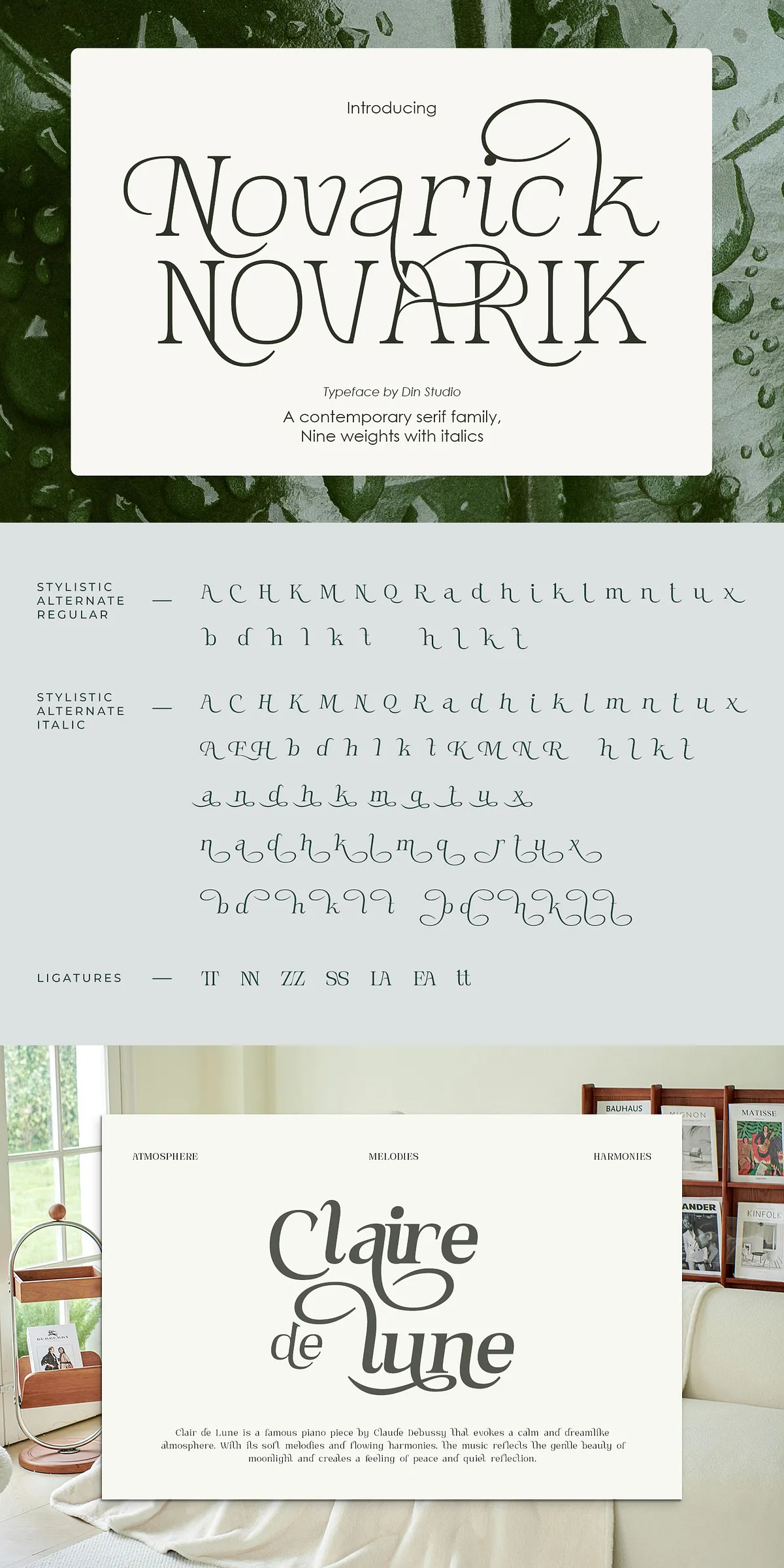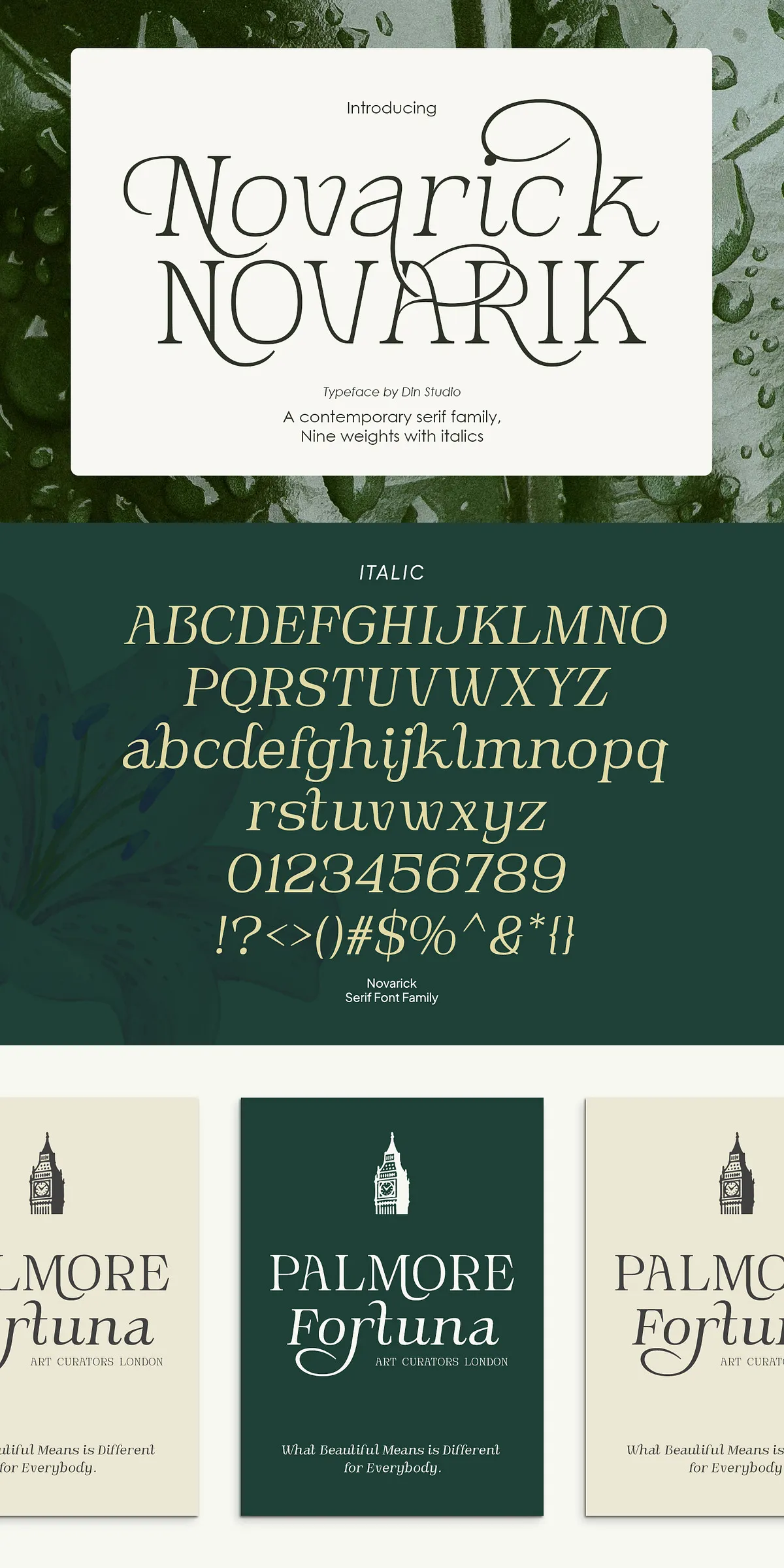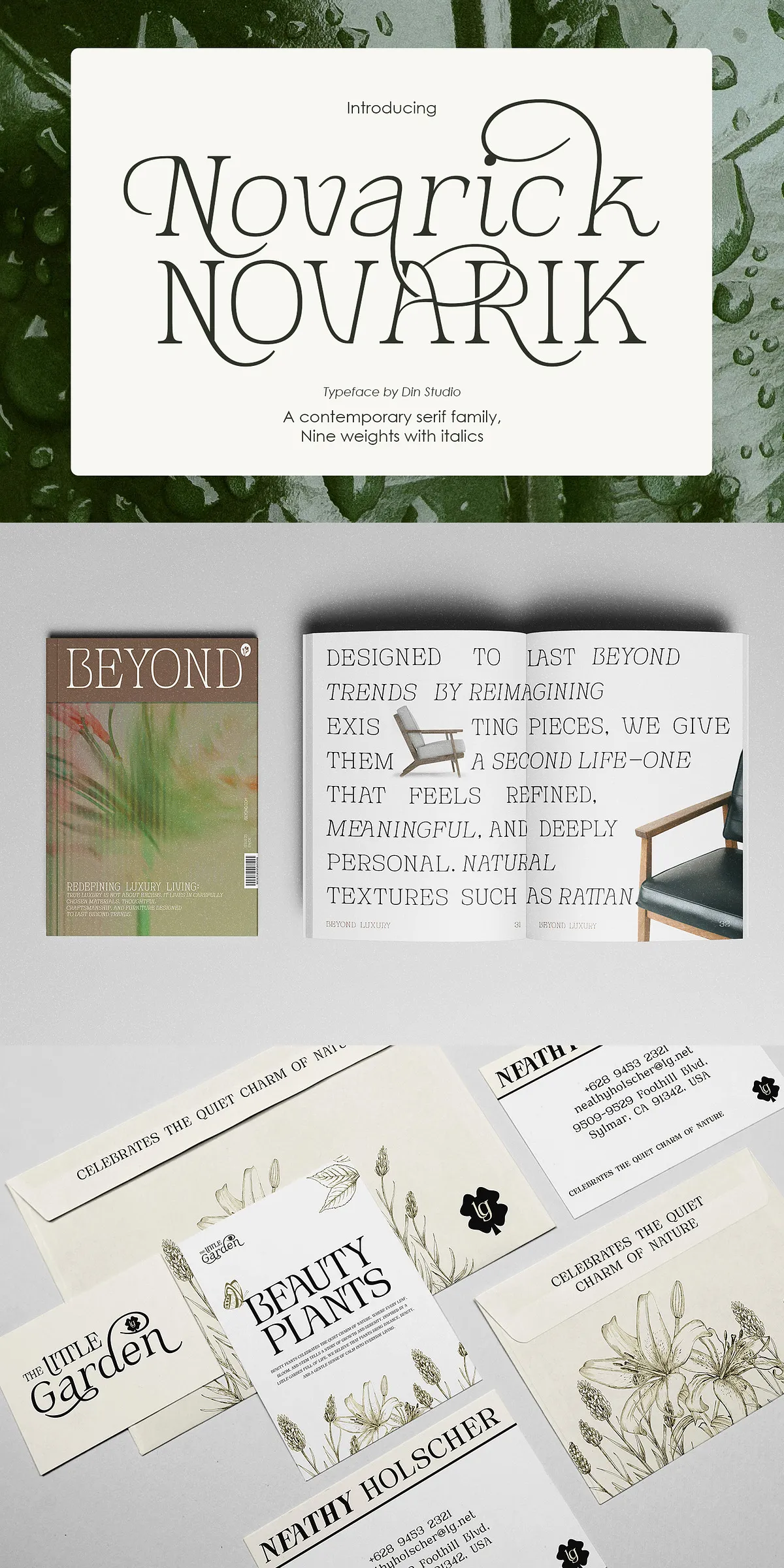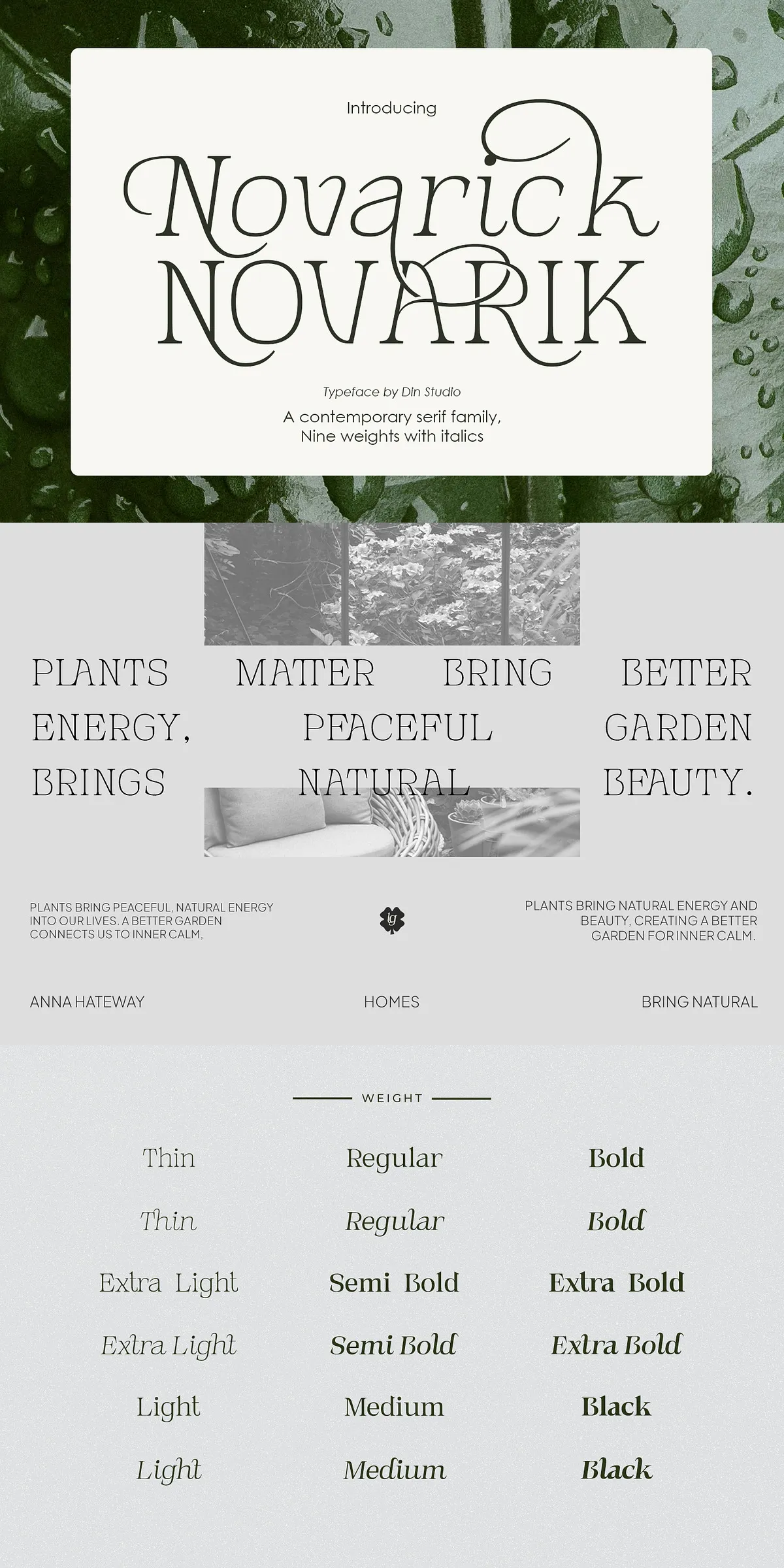
Novarick
Elevate your typographic designs with Novarick, a sophisticated serif font family that brings refined proportions and clean details to every project. Designed with a contemporary aesthetic, Novarick offers a polished visual experience that bridges the gap between classic tradition and modern style. This typeface is the ideal companion for designers who seek a professional yet stylish voice for their creative work. The refined construction of each letter ensures clarity and readability, while the elegant serifs add a touch of luxury that captivates the viewer. Whether you are crafting a brand identity or designing editorial layouts, Novarick delivers the perfect balance of form and function.
Expressive italics and refined character design
What truly sets Novarick apart is its meticulously crafted italic version. This feature adds depth, movement, and expressive character to the typeface, allowing for dynamic typographic hierarchies. The italic style is not merely a slanted version of the regular; it is a fully realized design that complements the upright forms with graceful curves and confident strokes. This duality gives designers the freedom to create striking contrasts and emphasize key messages without breaking the visual harmony of the layout. The attention to detail in the italic variants ensures that every text composition feels intentional and polished, making Novarick a versatile tool for modern graphic design.
Enhancing visual storytelling with subtle details
Novarick is designed to enhance visual storytelling through subtle yet impactful details. The clean serif structures guide the eye smoothly across lines of text, reducing fatigue and improving readability. This makes it an excellent choice for long-form content, such as articles, book layouts, and digital publications. At the same time, its bold presence commands attention when used in larger display sizes. The thoughtful engineering of the glyph shapes ensures that they remain crisp and clear at any scale, from tiny footnotes to massive poster headlines. Designers can rely on Novarick to maintain its aesthetic integrity across all applications.
Advanced features for creative flexibility
Beyond its beautiful design, Novarick is packed with advanced typographic features that empower designers to create unique and customized looks. The inclusion of alternates allows for subtle variations in letterforms, adding hand-crafted charm and preventing the mechanical repetition often found in digital fonts. Ligatures connect certain letter pairs for a smoother, more cohesive appearance, particularly beneficial in logo design and branding. These features provide an extra layer of control, enabling designers to fine-tune their compositions for maximum impact and visual appeal.
Comprehensive language support
Novarick is built for a global audience. Its extensive character set includes robust multilingual support, covering a wide range of Western European and other international languages. This ensures that your designs remain accurate and authentic regardless of the target market. Additionally, the font includes full sets of numerals and punctuation marks, ensuring that data, statistics, and structural elements are presented with the same level of elegance as the alphabets. The PUA encoding further extends the font’s capabilities, providing access to additional glyphs and special characters for specialized design needs.
Endless possibilities for branding and print
The versatility of Novarick makes it suitable for a vast array of design applications. It shines in logo design, where its clean lines and elegant serifs convey trust and sophistication. It is equally effective in business cards and name cards, adding a touch of premium quality to personal branding. For poster design and marketing materials, Novarick’s bold display potential grabs attention and holds it. Magazines, catalogs, and book covers benefit from its readability and refined aesthetic. Essentially, any project that requires a blend of professionalism and style can be elevated by the use of Novarick.
Explore the font preview and possibilities
To fully appreciate the range of Novarick, explore the comprehensive font preview. This showcase reveals the subtle nuances of the alternates, the flow of the ligatures, and the graceful sweep of the italics. Witness how the font behaves in different contexts, from tight kerning in headlines to spacious body text. The preview serves as a guide to help you visualize how Novarick can transform your own projects. By examining these examples, you can discover new ways to leverage the font’s capabilities in your creative workflow.
Why choose Novarick for your next project?
In a market saturated with generic typefaces, Novarick stands out as a premium choice for discerning designers. Its combination of contemporary design, classic serif roots, and advanced features makes it a powerful asset in any toolkit. The font’s ability to convey sophistication and professionalism ensures that your work resonates with audiences on a deeper level. By choosing Novarick, you are investing in a typeface that enhances the perceived value of your designs. It is not just a font; it is a strategic design element that communicates quality and attention to detail.